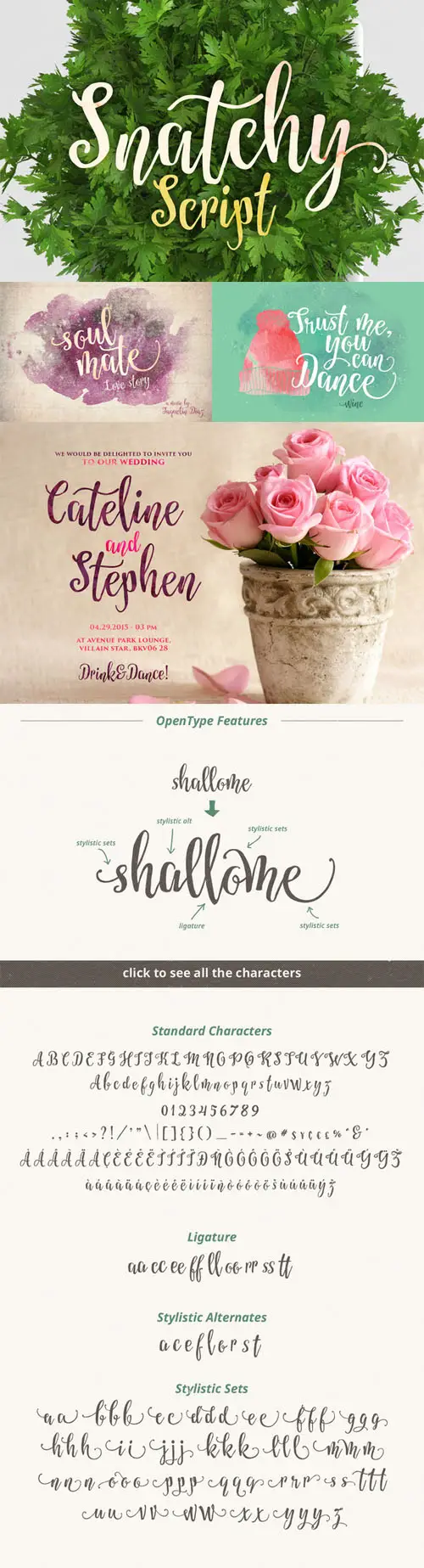
Snatchy suitable for vintage design as well as modern design, it can be used in your watercolour design project, greeting card, poster, t-shirt design, branding, etc. Snatchy contains of full set of standard characters, eastern diacritic symbols, and 85 alternative characters as OpenType features to play with. The OpenType features can be accessed by using OpenType savvy program such as Adobe Illustrator and Adobe InDesign.